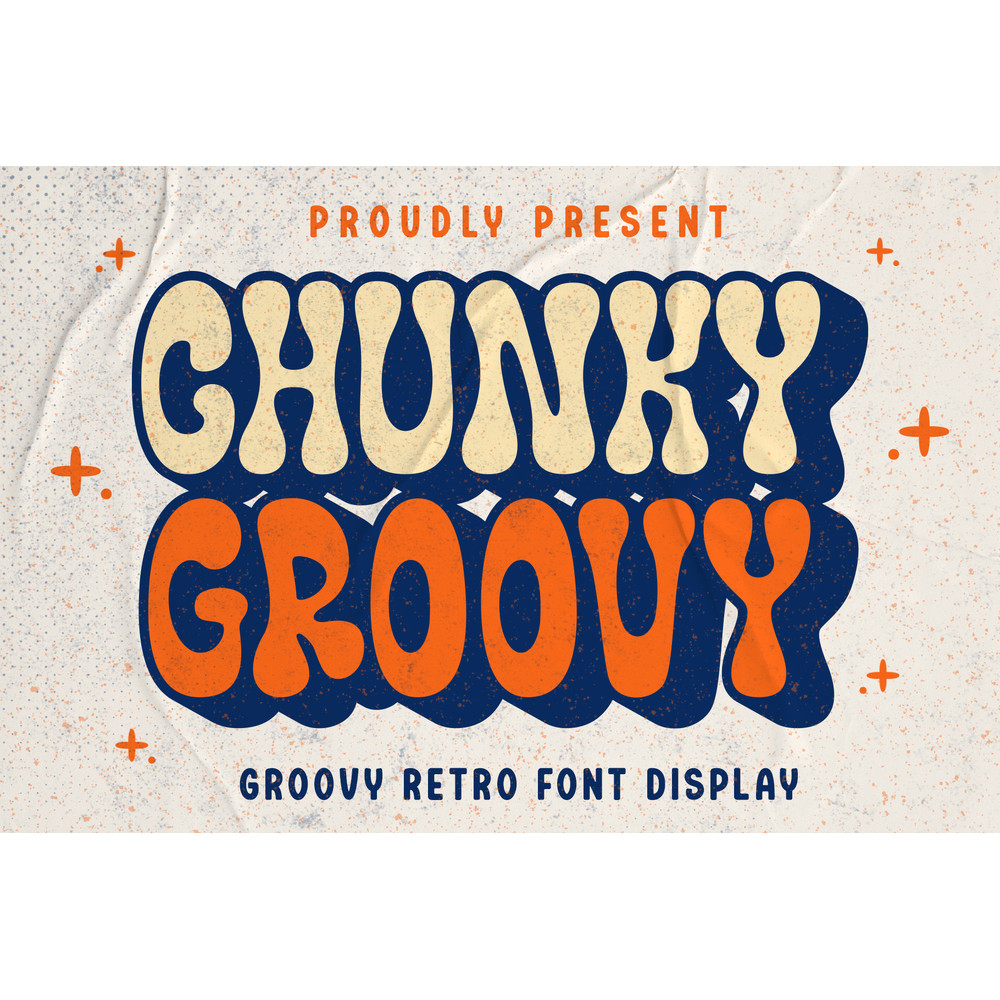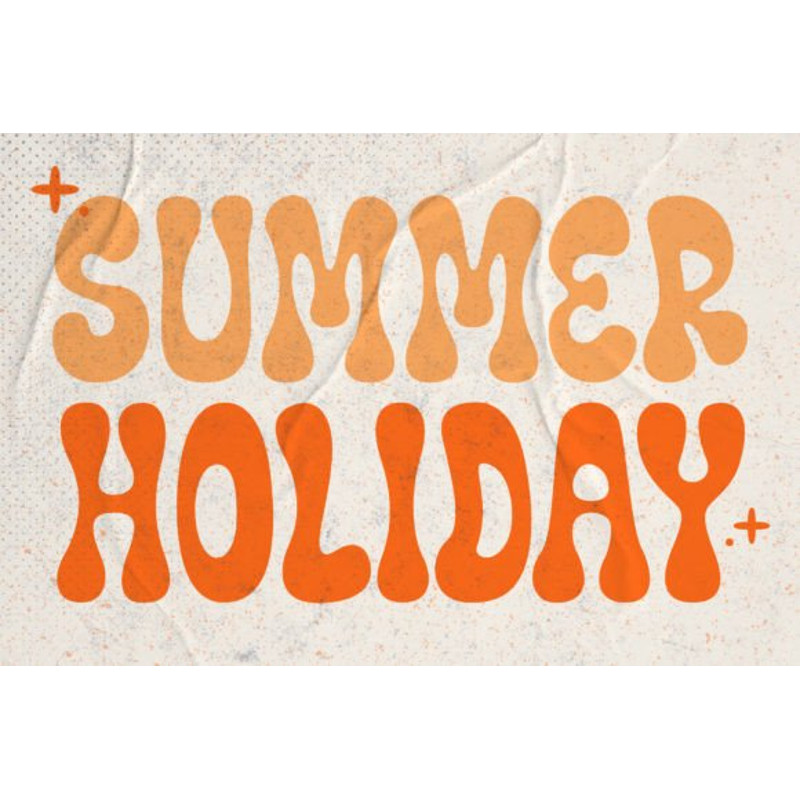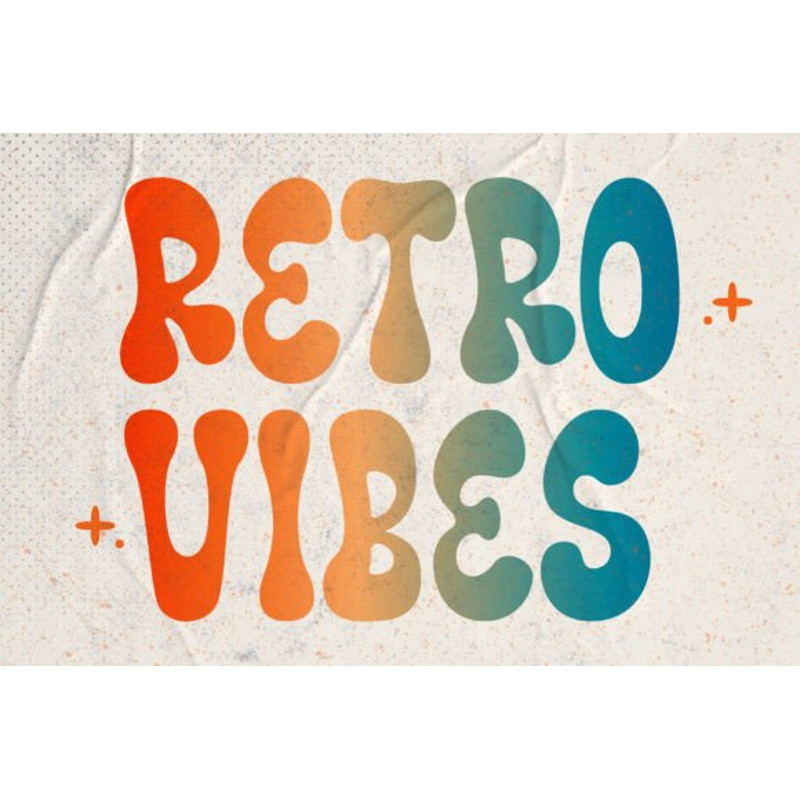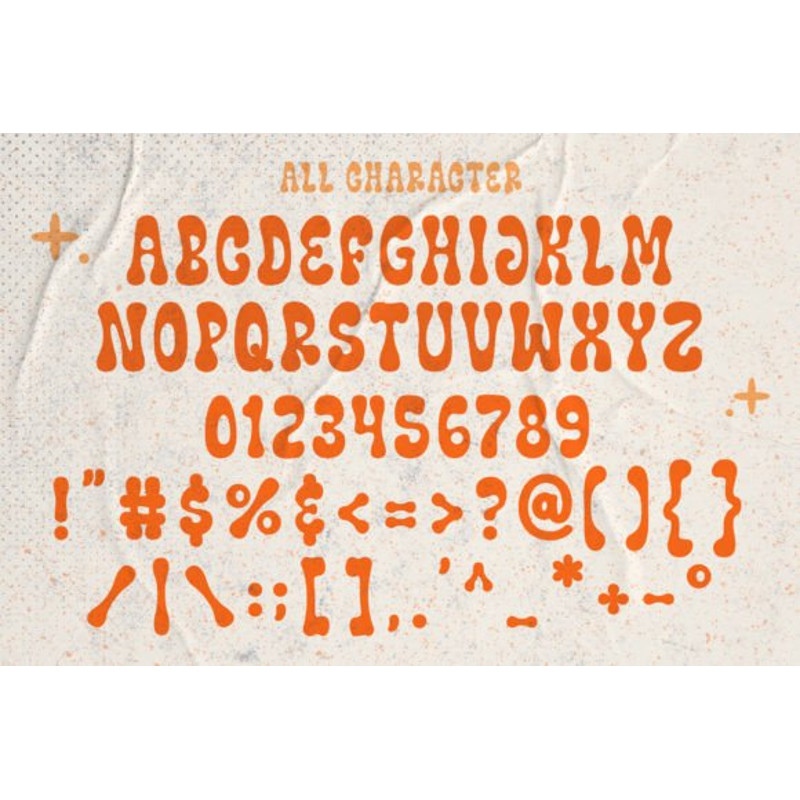
Chunky Groovy is a fun and groovy display font with a funky style. This font is perfect for creating t-shirts, stickers, children’s book covers, social media posts, and much more! This font is PUA encoded which means you can access all glyphs freely! Use this unique font to add that special retro touch to any design idea!